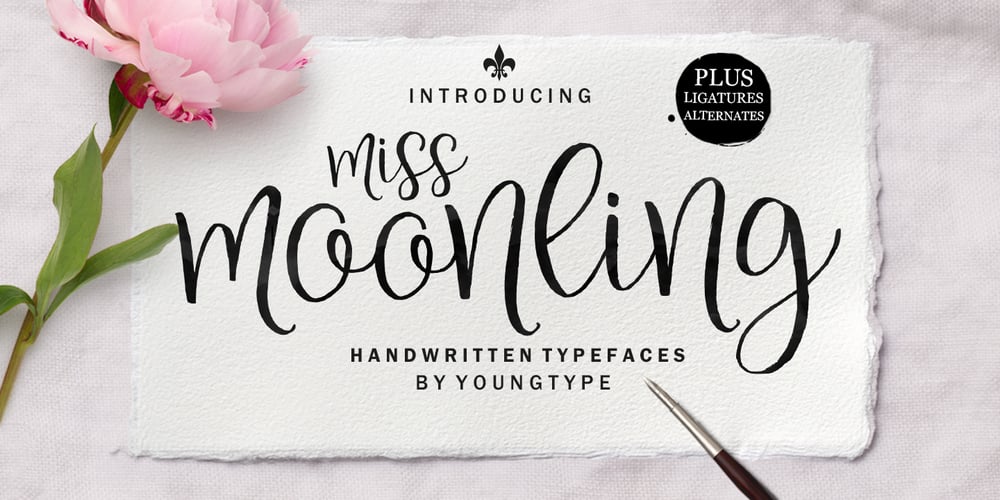
Miss Moonling
Miss Moonling font
Miss Moonling Font Family was designed by Naufal Paramata and published by Youngtype. Miss Moonling contains 1 styles and family package options. Miss Moonling is a hand brush font made with brushes and ink. This typeface is ideal for use in thick watercolor designs or handwriting styles, such as blog titles, posters, wedding elements, t-shirts, clothing, book covers, business cards, greeting cards, branding, merchandise etc.Contains full set:- Uppercase- Lowercase- Alternative- Ligatures- Punctuation- Number- Multilingual support.How to access all alternative characters, using Windows Character Map with Photoshop:- https://www.youtube.com/watch?v=Go9vacoYmBwHow to access all alternative characters using Adobe Illustrator:- https://www.youtube.com/watch?v=XzwjMkbB-wQThank you!